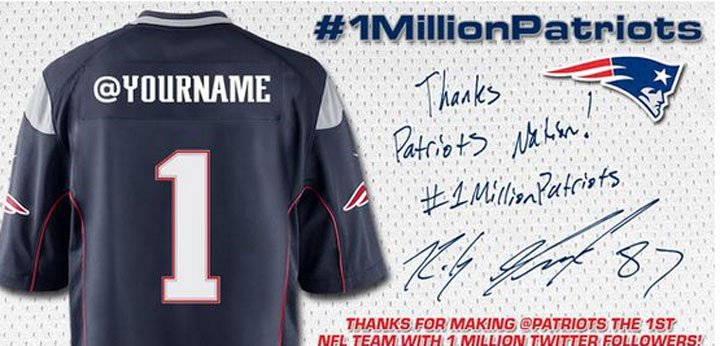
New England Patriots Number Font
The nfl patriots font contains 66 beautifully designed characters.
As a nitpickerresearcher of new england patriots jerseys i noticed awhile ago while looking through my football card collection that the pats utilized 2 different number fonts on their 1993 and 1994 jerseys. Sep 16 2018 download the free font replicating the new england patriots logo and many more at the original famous fonts. The new england patriots are a professional american football team based in the greater boston area. The difference is in the number fonts.
Submit a font tools. A font i ended up with after tweaking one. The main font is what i call the usc font currently used by the trojan football team. A font based on the new england patriots logo.